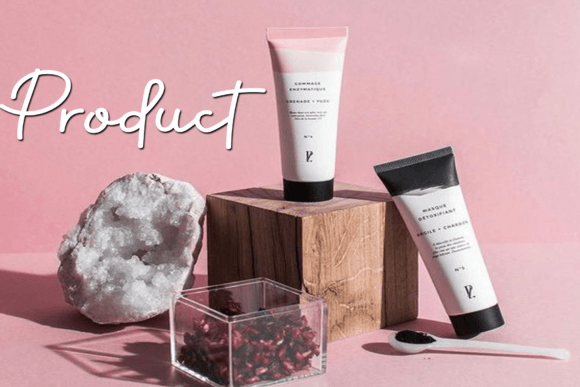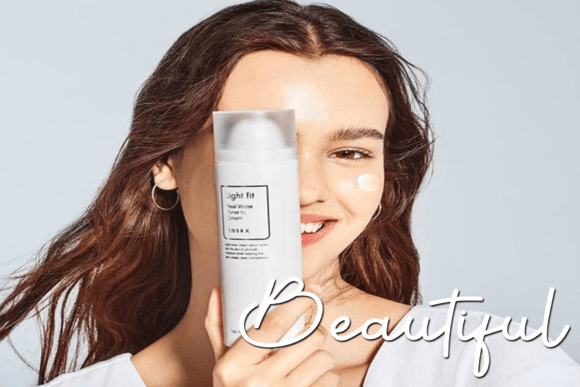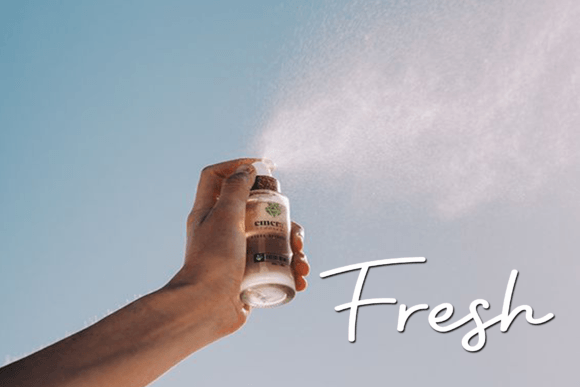
Better Stroke Font
Add Classic Simplicity with Better Stroke Font
The Better Stroke font is a classic and simple handwritten script designed to bring elegance and clarity to your creative projects. Its clean and timeless style makes it a versatile choice for designers looking to add a handcrafted yet professional touch. Whether you’re working on branding, invitations, or digital art, Better Stroke enhances your designs beautifully.
Perfect for Creative Projects and Branding
The Better Stroke font fits a wide range of applications including logos, greeting cards, social media graphics, posters, and more. Its simple and clean strokes add warmth and personality, making your projects feel authentic and polished.
A Handwritten Script with Timeless Appeal
Each letter in the Better Stroke font is thoughtfully crafted to provide smooth flow and readability. Its classic handwritten style balances elegance with accessibility, ensuring your message is clear and engaging.
Stylish and Readable Typography
While visually simple, the Better Stroke font maintains excellent readability across various sizes. Whether used for headlines or smaller text elements, it ensures clarity without sacrificing style, making it suitable for a variety of creative needs.
Make Your Designs Stand Out with Elegance
Typography shapes your project’s tone, and Better Stroke adds a classic and refined feel. If you want a handwritten script font that combines simplicity with style, download the Better Stroke font today and elevate your creative work.